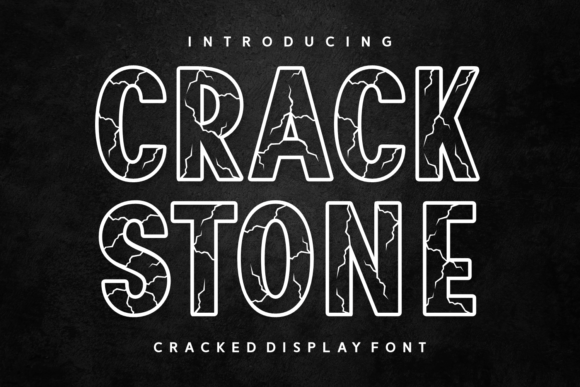
Get Ready to Crack Open Your Creativity
Have you ever stared at a blank canvas, waiting for inspiration to strike? The moment when ideas start flowing, and your imagination runs wild, is the most magical feeling for any creative soul. It’s the spark that ignites the flame of innovation, and it’s precisely what happens when you unleash the power of the right tools – like the Crack Stone Font.
This unique decorative font is a game-changer for designers looking to add an edge to their work. With its grungy look, the Crack Stone Font is perfect for expressing your creative vision on posters, titles, covers, banners, logos, and more. Its versatility makes it a valuable asset for any designer looking to take their projects to the next level.
Crack Stone Font Key Features
- Font Family: Crack Stone Font is a sans-serif font family designed for modern and minimalist designs. It is available in multiple weights, from Light to Bold.
- Character Set: The font includes a wide range of characters, including Latin, Cyrillic, and Greek alphabets, as well as punctuation and symbols.
- Unique Characteristics: The Crack Stone Font features a unique, cracked stone texture that gives it a distressed, industrial look. The font is perfect for designs that require a touch of grit and ruggedness.
Crack Stone Font Review
Overall, I was quite impressed with the Crack Stone Font, but as with any design element, there are pros and cons. Here’s my honest review:
- The unique and rugged aesthetic of the font is perfect for outdoor or adventure-themed designs. It’s a great choice for headings or titles that need to stand out.
- The bold and edgy feel of the font works well for making bold statements or highlighting key information.
- The font’s irregularities add a touch of personality and character, making it more engaging and memorable.
Limitsations ⚠️
- The font may be too overwhelming for smaller text sizes or when used extensively throughout a design. It’s best to use it sparingly to avoid visual fatigue.
- The font’s irregularities may not be suitable for all design contexts, such as technical or instructional content, where clarity and legibility are crucial.
While the Crack Stone Font has its limitations, it’s a great addition to any designer’s toolkit when used judiciously. Its unique aesthetic and bold personality make it perfect for projects that require a rugged, adventurous vibe. With careful consideration and balancing, this font can be a game-changer for the right designs.
Tip: Use the Crack Stone Font to add a distressed or vintage look to your designs.
Tip: Use the Crack Stone Font to create a unique and eye-catching title or heading.
Tip: Use the Crack Stone Font to add a decorative touch to your presentations or documents.
The Crack Stone Font is perfect for:
- Distressed or vintage designs.
- Unique and eye-catching titles or headings.
- Decorative text for presentations or documents.
Alternatives to “Crack Stone Font” for Designers
Fontin is a modern, elegant serif font designed by Robert Schenk. It is perfect for use in headings and titles, particularly in publishing and editorial design. Compared to Crack Stone Font, Fontin has a more refined and sophisticated look, making it suitable for high-end designs.
Copperplate is a classic, formal script font that is ideal for use in invitations, certificates, and other formal documents. It has a more traditional and elegant feel compared to Crack Stone Font, which makes it a good choice for designs that require a touch of sophistication and elegance.
Didot is a luxurious, high-end serif font that is perfect for use in fashion, luxury, and high-end branding. Compared to Crack Stone Font, Didot has a more refined and elegant look, making it suitable for designs that require a touch of luxury and sophistication.
Playfair Display is a high-end, elegant serif font that is perfect for use in headings and titles, particularly in luxury and high-end branding. Compared to Crack Stone Font, Playfair Display has a more refined and sophisticated look, making it suitable for designs that require a touch of luxury and elegance.